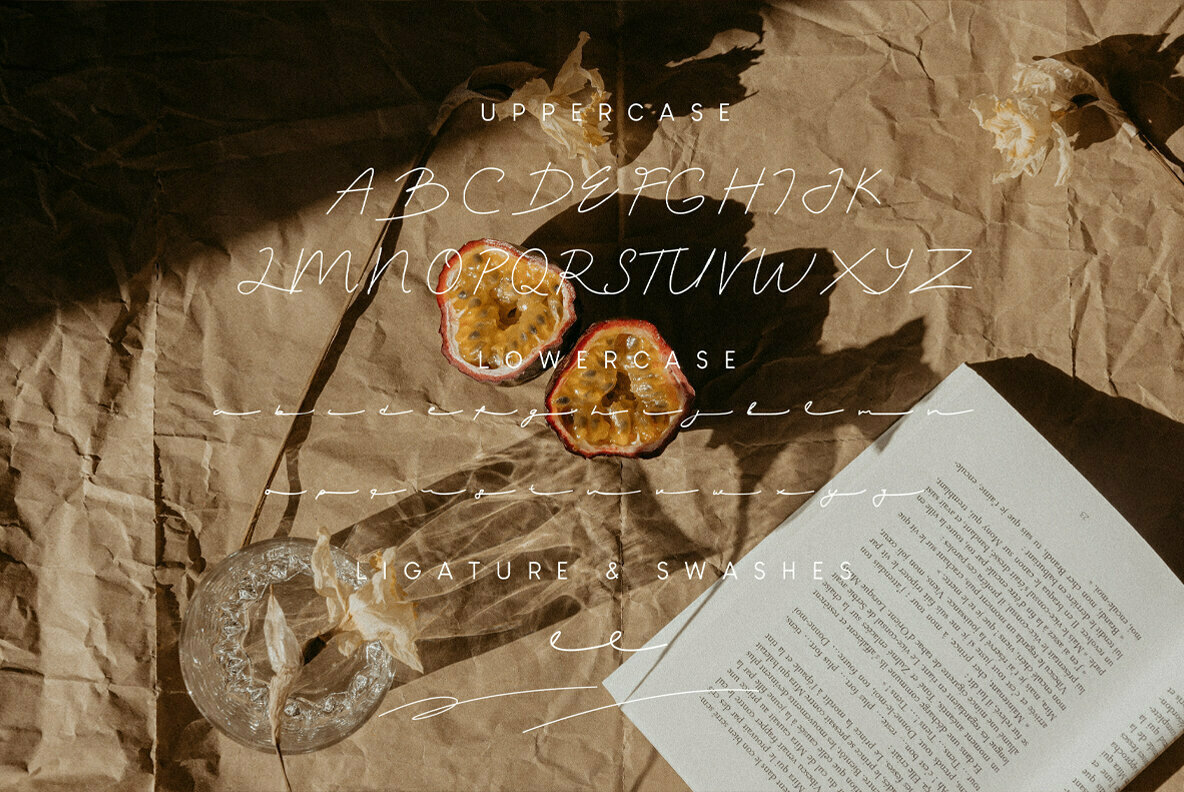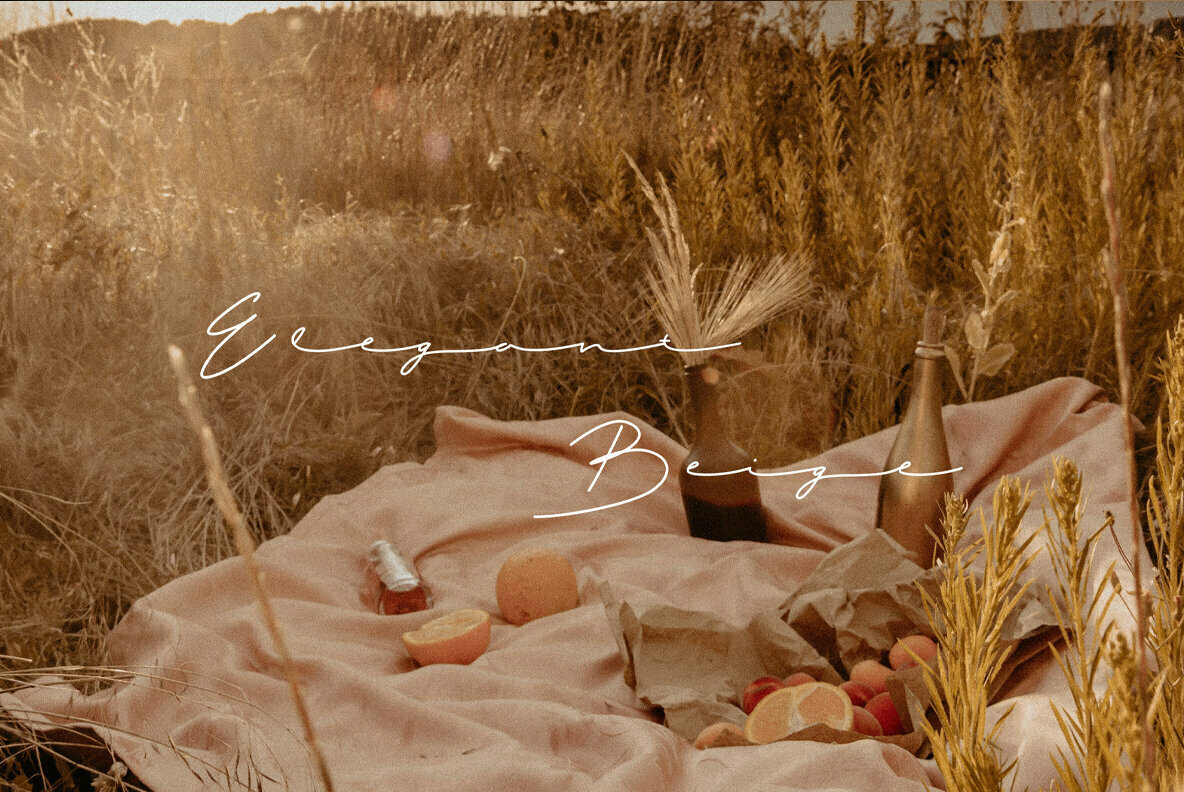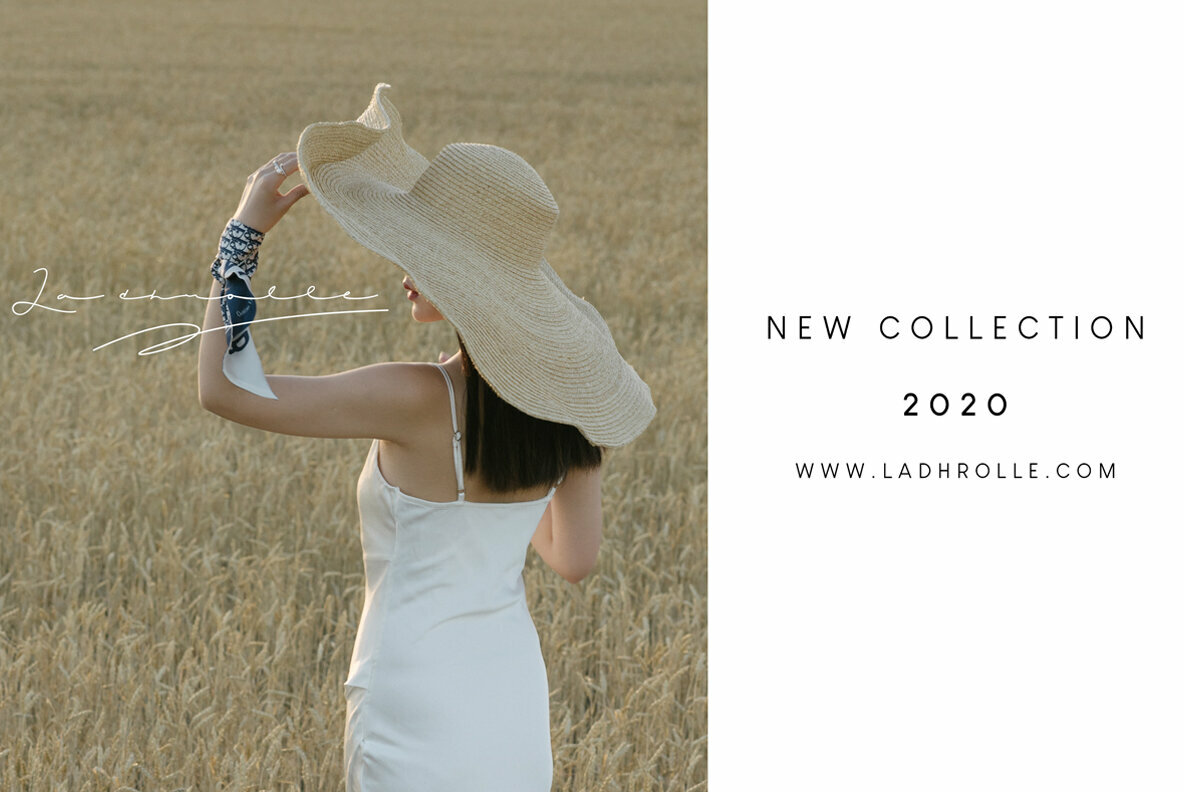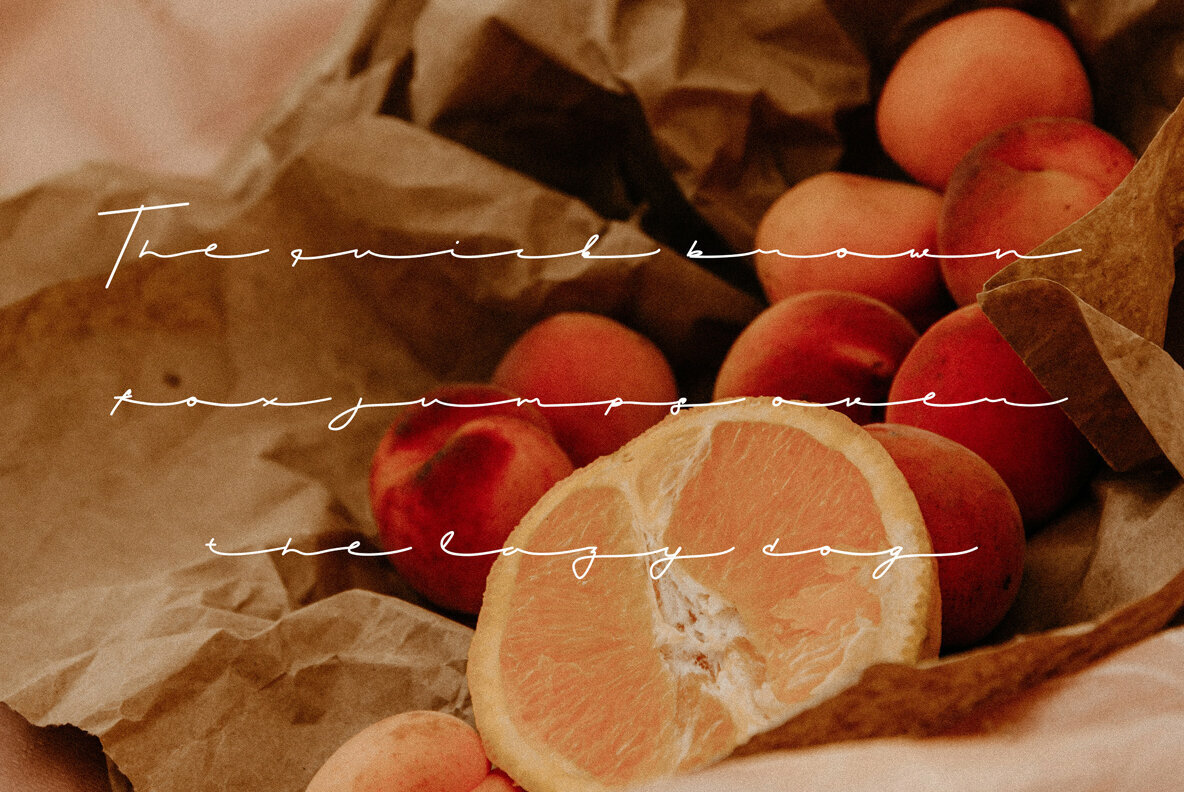
Virghie, signature font that aesthetic and elegant look. Good for logotype or just to show something elegant from your design. Complete with
- Uppercase
- Lowercase